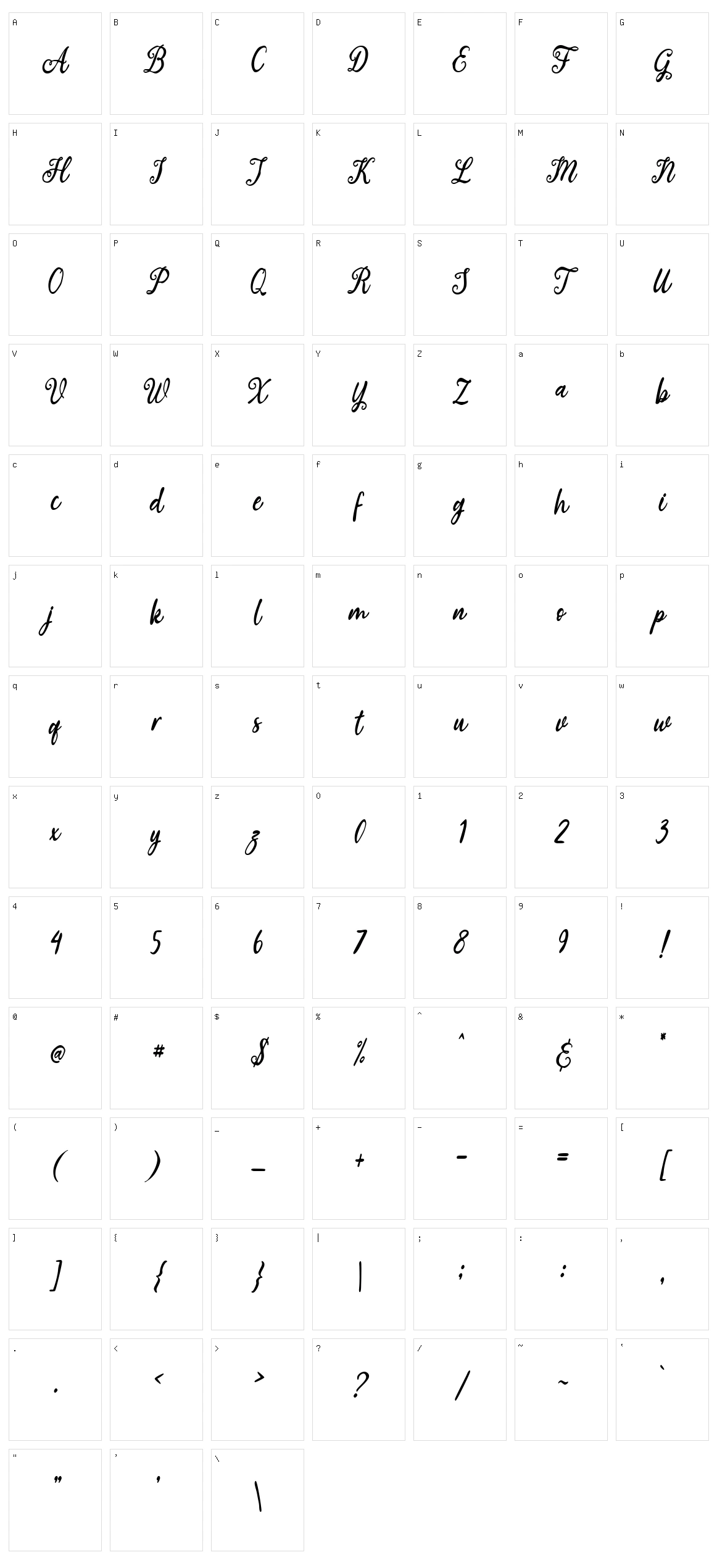
The free font Grettana is carefully designed by Solidtype, showcasing a thoughtful balance of creativity and usability and falls under the Script font style. When you download the ZIP file, it contains only 44.12 KB of font files, making it lightweight and quick to download. Please review the license details below to understand permitted usage and distribution rights. If license information is not available, we recommend using this font for personal projects only or contacting the author directly for commercial usage permissions.